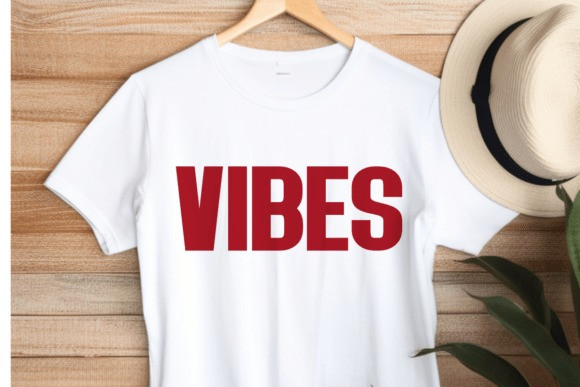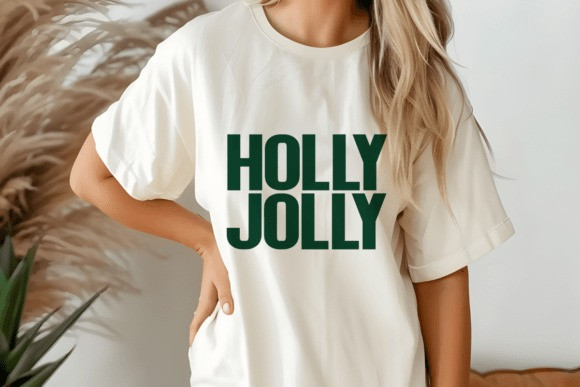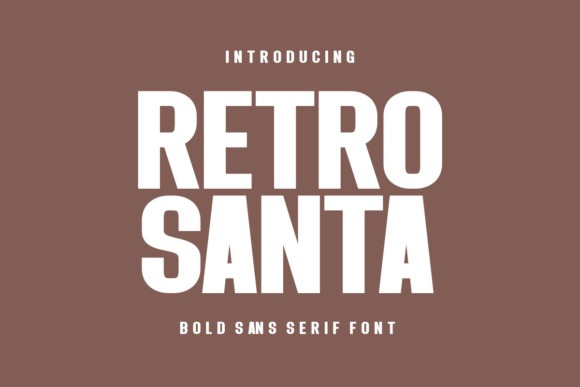
Retro Santa Font
Retro Santa Font is a retro sans serif font with a stunning vintage feel. It’s perfect for logos, t-shirts, mugs, invitations, greeting cards, branding, posters, packaging, signs, cutting boards, printables, crafting, and other designs. Whatever your creative needs are, Retro Santa is the perfect choice for a modern yet simple design!